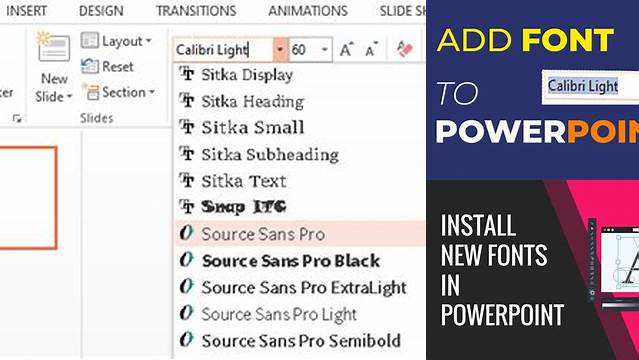
Install Fonts In PowerPoint: A Step-by-Step Guide
Hey guys! Ever felt like your PowerPoint presentations are missing that special something? Maybe the default fonts just aren't cutting it, and you're craving a unique typeface to really make your slides pop. Well, you're in the right place! In this comprehensive guide, we're diving deep into the world of fonts and how to install them in PowerPoint. We'll cover everything from finding the perfect font to the nitty-gritty steps of installation, ensuring your presentations are visually stunning and leave a lasting impression. Let's face it, a well-chosen font can elevate your presentation from blah to brilliant. Think of it as the outfit your words are wearing – you want them dressed to impress! So, whether you're a seasoned presenter or just starting out, this guide will equip you with the knowledge and skills to master font installation in PowerPoint. We'll break down the process into easy-to-follow steps, so you can say goodbye to boring presentations and hello to captivating visuals. Get ready to unleash your inner font enthusiast and transform your presentations into works of art!
Why Install Custom Fonts in PowerPoint?
Before we jump into the how, let's talk about the why. Why bother installing custom fonts in PowerPoint? Well, the answer is simple: custom fonts add personality and professionalism to your presentations. Think of the default fonts like Arial or Times New Roman – they're classic, sure, but they can also feel a little…generic. By installing custom fonts, you can inject your unique style and create a visual identity that sets you apart. Imagine you're creating a presentation for a tech startup. A sleek, modern font will convey innovation and cutting-edge thinking far better than a traditional serif font. Or perhaps you're designing a presentation for a children's book. A playful, whimsical font will capture the audience's attention and create a sense of fun. The right font can reinforce your message and evoke the desired emotions in your audience. Beyond aesthetics, custom fonts can also enhance readability. Some fonts are specifically designed for on-screen viewing, with clear, legible characters that make your text easy to read. This is especially important for presentations with a lot of text. Moreover, using custom fonts can help you maintain brand consistency. If your company has a specific font used in its logo and marketing materials, using that same font in your presentations will create a cohesive brand image. This consistency builds trust and reinforces your brand identity in the minds of your audience. So, ditch the default fonts and embrace the power of customization! Installing custom fonts in PowerPoint is a simple yet effective way to elevate your presentations and make a lasting impact.
Finding the Perfect Font
Okay, so you're convinced that custom fonts are the way to go. But where do you even begin to find the perfect font? The internet is overflowing with options, which can be both exciting and overwhelming. Don't worry, guys! We're here to guide you through the process. First, consider the purpose and tone of your presentation. Are you presenting a serious business proposal, a creative marketing campaign, or a fun educational lesson? The font you choose should align with the overall message and style of your presentation. For formal presentations, clean and professional fonts like Helvetica, Open Sans, or Roboto are excellent choices. These fonts are easy to read and convey a sense of authority. For more creative presentations, you can explore a wider range of fonts, such as script fonts, display fonts, or even hand-drawn fonts. Just be careful not to go overboard – readability should always be a priority. Next, think about your target audience. Who are you presenting to? What are their expectations? A font that resonates with one audience might not work for another. For example, a younger audience might appreciate a trendy, modern font, while an older audience might prefer a more traditional and familiar typeface. Once you have a clear idea of the purpose, tone, and audience, it's time to start browsing font websites. There are tons of great resources out there, both free and paid. Some popular websites include Google Fonts, Adobe Fonts, DaFont, and Font Squirrel. Google Fonts is a fantastic option for free fonts, offering a wide variety of high-quality typefaces that are easy to download and use. Adobe Fonts is a subscription-based service that provides access to a vast library of professional fonts. DaFont and Font Squirrel are great resources for finding unique and creative fonts, many of which are free for personal use. As you browse, pay attention to font pairings. A good font pairing can create visual harmony and enhance the overall design of your presentation. Generally, it's a good idea to pair a display font (used for headings) with a sans-serif font (used for body text). Don't be afraid to experiment and try out different combinations until you find the perfect match. And remember, less is often more. Avoid using too many different fonts in your presentation, as this can make it look cluttered and unprofessional. Stick to a maximum of two or three fonts for a cohesive and polished look.
So, guys, there you have it! A comprehensive guide to installing fonts in PowerPoint. We've covered everything from finding the perfect font to troubleshooting common installation issues. By now, you should feel confident in your ability to transform your presentations with custom fonts and create visuals that truly stand out. Remember, fonts are a powerful tool for communication. They can convey emotions, enhance readability, and reinforce your brand identity. By choosing the right fonts and using them effectively, you can elevate your presentations and make a lasting impression on your audience. Don't be afraid to experiment and try out different fonts until you find the perfect match for your message and style. The world of fonts is vast and exciting, so dive in and explore! And most importantly, have fun with it! Creating visually appealing presentations can be a rewarding and enjoyable process. So go ahead, unleash your creativity and let your fonts do the talking. Happy presenting!